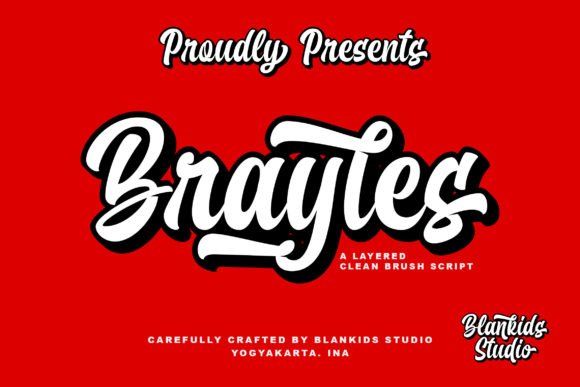
Introduction to Brayles Font
Brayles is in inspiring and fun font with unique characters that will turn any design project into a true stand out.
Key Features of Brayles Font
Why Choose Brayles Font?
Brayles Font offers exceptional quality and versatility, making it a valuable addition to your design toolkit. Whether you’re creating for personal projects or commercial use, Brayles Font delivers professional results.